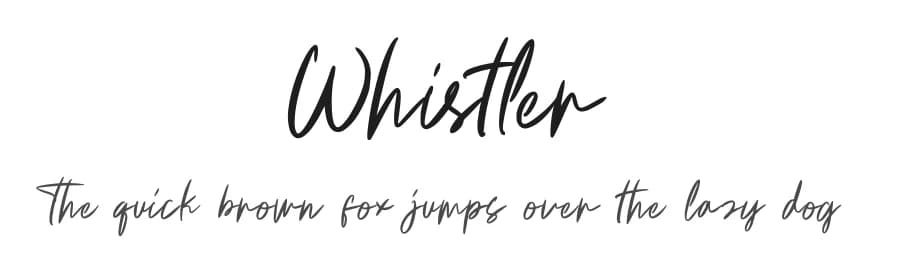
About Whistler Font
Whistler Specifications
| Font Family | Whistler |
| Full Name | Whistler |
| Glyph Count | 273 glyphs |
| PostScript Name | Whistler |
| Designer | Bandofol Studio |
Whistler supports 217 languages.
Whistler Font is a script font that shines as a display or heading face. Pair it with a clean sans-serif or serif font for body text β the contrast creates a clear hierarchy while the two styles stay balanced and easy to read.
Whistler Font